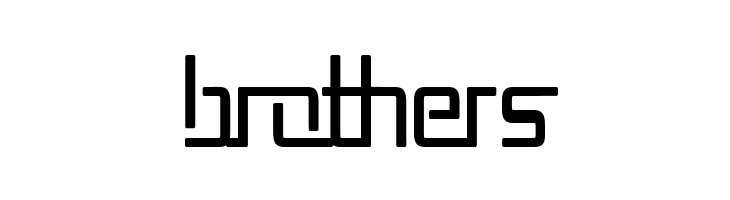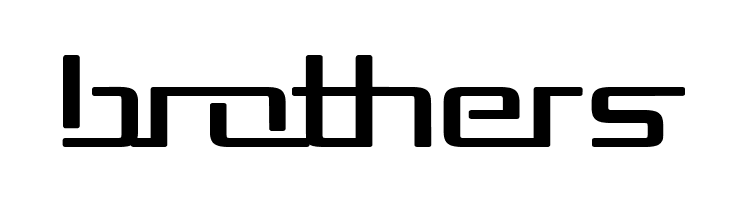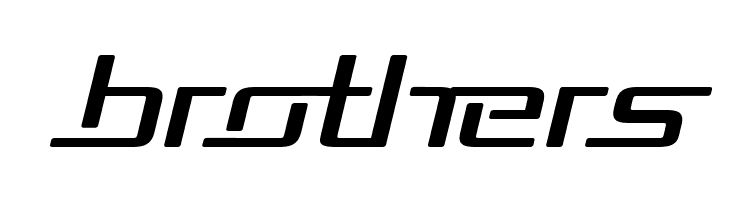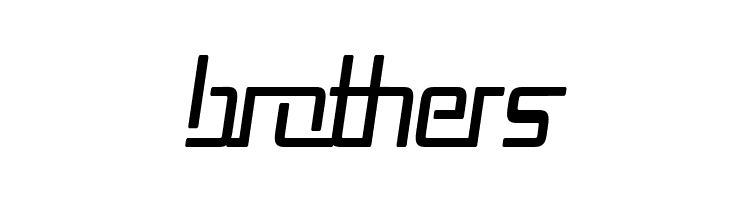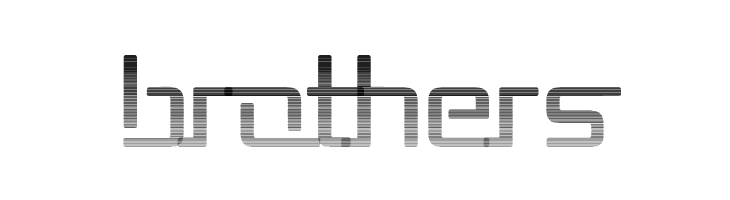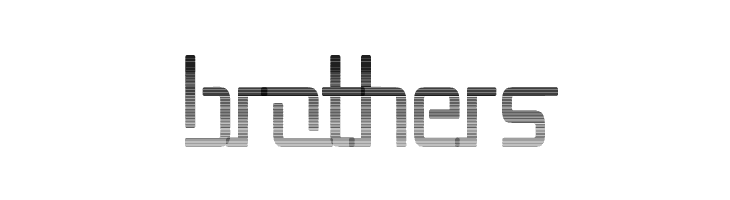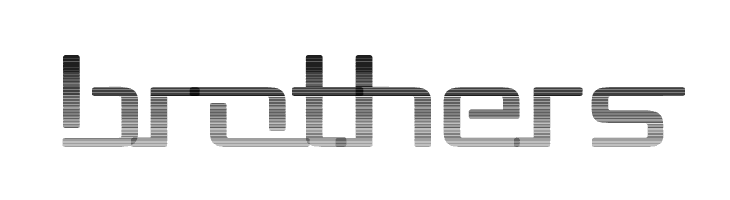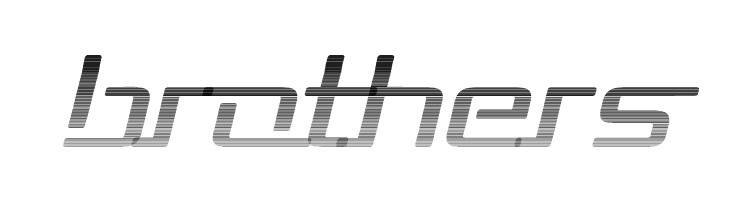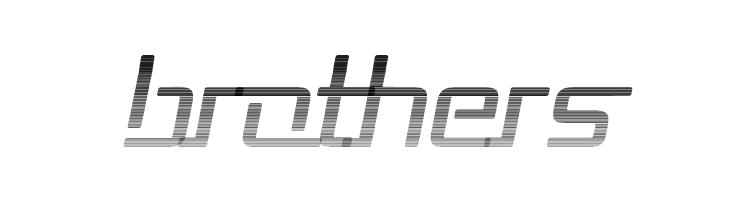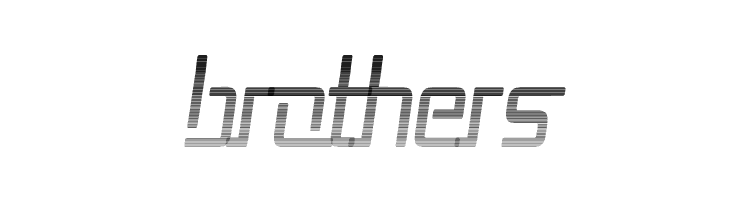
( Fonts by Apostrophic Lab ) A bold, italicized font with a futuristic and dynamic style. Download 152 Downloads@WebFont
( Fonts by Apostrophic Lab ) A modern, italicized font with a sleek, futuristic design. Download 269 Downloads@WebFont
( Fonts by Apostrophic Lab ) A modern, geometric font with clean lines and a futuristic aesthetic. Download 402 Downloads@WebFont
( Fonts by Apostrophic Lab ) A modern, geometric font with a futuristic and sleek design. Download 129 Downloads@WebFont
( Fonts by Apostrophic Lab ) A futuristic, geometric font with a digital, monospaced style and gradient effect. Download 96 Downloads@WebFont
( Fonts by Apostrophic Lab ) A futuristic italic font with sleek, dynamic lines and geometric shapes. Download 117 Downloads@WebFont
( Fonts by Apostrophic Lab ) A geometric, futuristic font with clean lines and a technical aesthetic. Download 101 Downloads@WebFont
( Fonts by Apostrophic Lab ) A sleek, modern italic font with geometric precision and a dynamic style. Download 83 Downloads@WebFont
( Fonts by Apostrophic Lab ) A bold, shattered glass effect font with a dynamic and geometric style. Download 138 Downloads@WebFont
( Fonts by Apostrophic Lab ) A bold, italicized font with a unique shattered effect, perfect for modern designs. Download 106 Downloads@WebFont
( Fonts by Apostrophic Lab ) A sketch-style, three-dimensional font with geometric and angular design. Download 107 Downloads@WebFont
( Fonts by Apostrophic Lab ) A sketch-style italic font with geometric outlines and dynamic flair. Download 117 Downloads@WebFont
( Fonts by Apostrophic Lab ) A bold, geometric font with a modern and futuristic style. Download 98 Downloads@WebFont
( Fonts by Apostrophic Lab ) A bold, italicized font with a futuristic and sporty design. Download 185 Downloads@WebFont
( Fonts by Apostrophic Lab ) A bold, geometric font with a modern and futuristic style. Download 140 Downloads@WebFont
( Fonts by Apostrophic Lab ) A bold, italicized font with a modern, futuristic style and sharp geometric lines. Download 140 Downloads@WebFont
( Fonts by Apostrophic Lab ) A modern, geometric, and condensed font with a futuristic style. Download 134 Downloads@WebFont
( Fonts by Apostrophic Lab ) A futuristic, gradient-effect font with geometric precision and a digital aesthetic. Download 110 Downloads@WebFont
( Fonts by Apostrophic Lab ) A modern, condensed, and italicized font with a sleek, futuristic design. Download 118 Downloads@WebFont
( Fonts by Apostrophic Lab ) A geometric, modern font with a condensed, technical style. Download 91 Downloads@WebFont
( Fonts by Apostrophic Lab ) A modern, condensed, and italicized font with a geometric and futuristic design. Download 87 Downloads@WebFont
( Fonts by Apostrophic Lab ) A dynamic font with a shattered glass effect, offering an edgy and bold appearance. Download 110 Downloads@WebFont
( Fonts by Apostrophic Lab ) A shattered, italic font with a dynamic, geometric design and high contrast. Download 127 Downloads@WebFont
( Fonts by Apostrophic Lab ) A sketch-style, three-dimensional font with geometric and modern characteristics. Download 125 Downloads@WebFont
( Fonts by Apostrophic Lab ) A sketch-style, condensed italic font with a 3D outline effect. Download 101 Downloads@WebFont
( Fonts by Apostrophic Lab ) A bold, geometric font with a modern, futuristic style. Download 147 Downloads@WebFont
( Fonts by Apostrophic Lab ) A bold, ultra-italic, condensed font with high contrast and a modern, dynamic style. Download 103 Downloads@WebFont
( Fonts by Apostrophic Lab ) A bold, geometric font with a modern and futuristic style. Download 103 Downloads@WebFont
( Fonts by Apostrophic Lab ) A bold, italic, and condensed font with a modern, geometric style. Download 105 Downloads@WebFont
( Fonts by Apostrophic Lab ) A sleek, modern, condensed italic font with a futuristic and geometric design. Download 140 Downloads@WebFont
( Fonts by Apostrophic Lab ) A modern, geometric font with a futuristic and technological style. Download 244 Downloads@WebFont
( Fonts by Apostrophic Lab ) A modern, digital-inspired font with geometric and linear elements. Download 143 Downloads@WebFont
( Fonts by Apostrophic Lab ) A futuristic italic font with geometric shapes and a layered effect. Download 96 Downloads@WebFont
( Fonts by Apostrophic Lab ) A sleek, modern font with a futuristic, italicized design and geometric influences. Download 77 Downloads@WebFont
( Fonts by Apostrophic Lab ) A bold, shattered-effect font with a modern and edgy style. Download 153 Downloads@WebFont